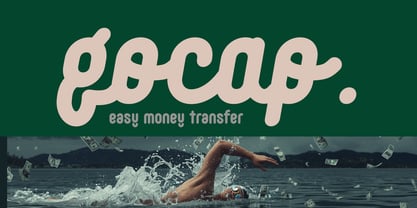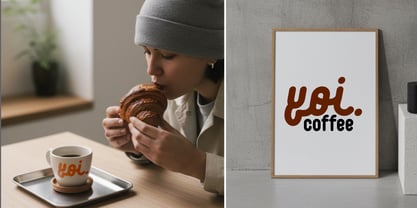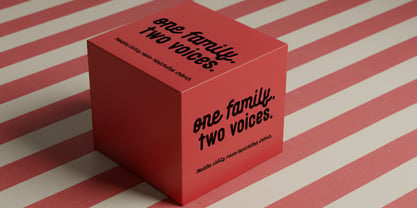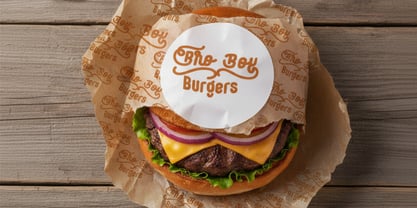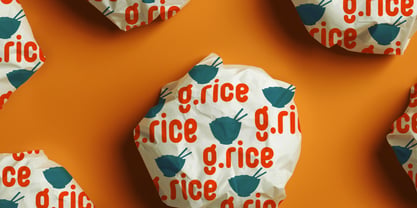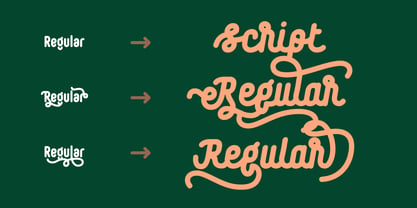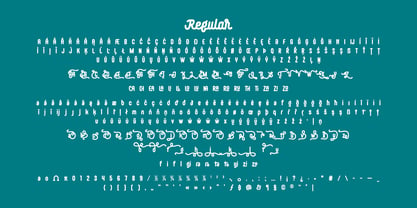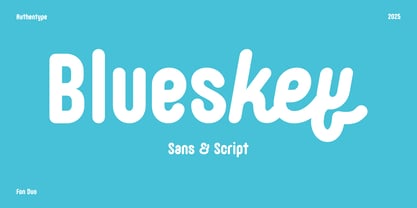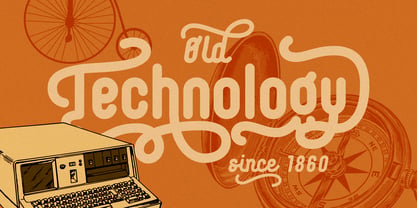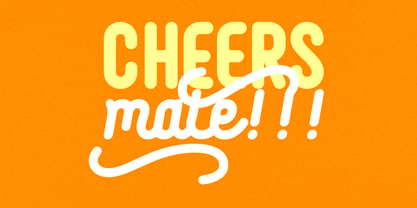
Blueskey Sans
by Authentype
Blueskey font A modern dual-style type system designed for expressive branding and professional logo font duo applications. Blueskey is a versatile logo font duo combining a clean, modern sans-serif with a warm, handcrafted script. Both styles share the same structural DNA, offering seamless pairing and a unified typographic voice. Designed for brands that need clarity with personality, Blueskey performs beautifully across logo systems, packaging, headlines, and editorial layouts. With its balanced construction and intentional harmony, Blueskey delivers a cohesive toolkit for contemporary identity design. WHAT’S INSIDE THE FAMILY Blueskey A rounded humanist-geometric sans with generous proportions and smooth curve transitions. Built for readability and visual comfort, it delivers a modern, friendly tone suitable for both display and small applications—making it an ideal foundation for any logo font duo workflow.
Designers: Ekayasa Ekayasa
Foundry: Authentype